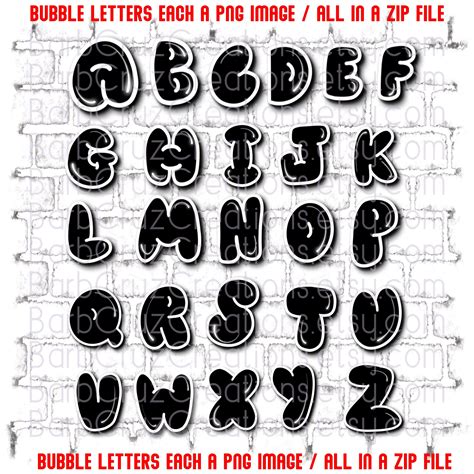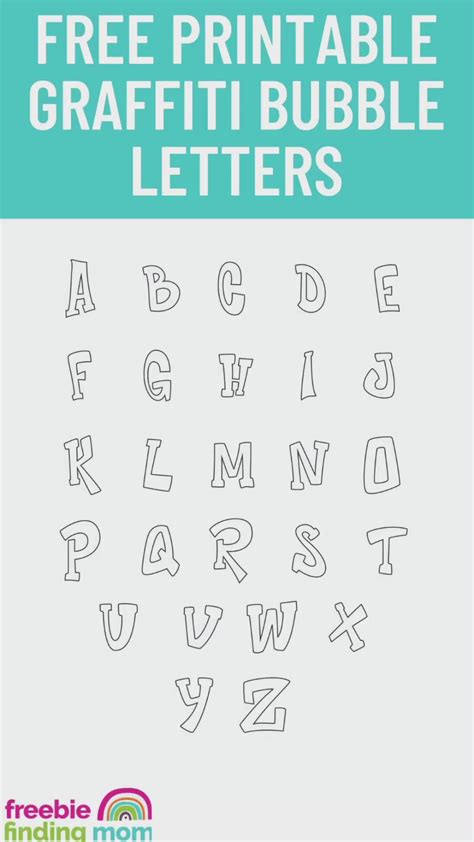
In the world of graphic design and typography, the Bubble Letters Alphabet Font stands out as a playful and expressive choice. This font style, characterized by its rounded, inflated letters, has a unique charm that makes it perfect for various creative projects. Whether you're designing a poster, creating a logo, or adding a fun touch to digital art, the Bubble Letters Alphabet Font can bring a sense of whimsy and creativity to your work.
Understanding Bubble Letters Alphabet Font
The Bubble Letters Alphabet Font is more than just a font; it’s a design element that can transform ordinary text into something extraordinary. The font’s distinctive style, with its large, rounded letters, evokes a sense of nostalgia and playfulness. It’s often associated with graffiti art, comic books, and children’s illustrations, making it a versatile choice for a wide range of applications.
History and Evolution
The origins of the Bubble Letters Alphabet Font can be traced back to the 1970s and 1980s, when graffiti artists began using this style to create eye-catching murals and tags. The font’s popularity grew as it became a staple in comic books and animated series, where it was used to convey a sense of fun and excitement. Over the years, the Bubble Letters Alphabet Font has evolved, with designers creating digital versions that can be easily integrated into modern graphic design software.
Characteristics of Bubble Letters Alphabet Font
The Bubble Letters Alphabet Font is known for its unique characteristics, which set it apart from other font styles. Some of the key features include:
- Rounded Letters: The letters in this font are rounded and inflated, giving them a soft, bubbly appearance.
- Bold and Thick Strokes: The font often features bold and thick strokes, which make it stand out against various backgrounds.
- Playful and Whimsical: The overall design of the font is playful and whimsical, making it perfect for projects that require a fun and lighthearted touch.
- Versatile: Despite its playful nature, the Bubble Letters Alphabet Font is versatile and can be used in a variety of contexts, from children’s books to modern graphic design.
Applications of Bubble Letters Alphabet Font
The Bubble Letters Alphabet Font is incredibly versatile and can be used in a wide range of applications. Here are some of the most common uses:
- Posters and Flyers: The font’s bold and eye-catching design makes it perfect for posters and flyers, where it can grab attention and convey a sense of excitement.
- Logos and Branding: For brands that want to convey a playful and approachable image, the Bubble Letters Alphabet Font can be an excellent choice for logos and branding materials.
- Children’s Books and Illustrations: The font’s whimsical and playful design makes it ideal for children’s books and illustrations, where it can add a sense of fun and creativity.
- Digital Art and Graphics: In the world of digital art and graphics, the Bubble Letters Alphabet Font can be used to create unique and eye-catching designs that stand out from the crowd.
- Greeting Cards and Invitations: For greeting cards and invitations, the font can add a personal and playful touch, making them more memorable and enjoyable.
Creating Bubble Letters Alphabet Font Designs
Creating designs with the Bubble Letters Alphabet Font can be a fun and rewarding experience. Here are some steps to help you get started:
- Select the Font: Choose the Bubble Letters Alphabet Font from your software’s font library or import it if you have a custom version.
- Design Your Layout: Plan your design layout, considering the placement of text, images, and other elements.
- Add Text: Use the Bubble Letters Alphabet Font to add text to your design. Experiment with different sizes and styles to achieve the desired effect.
- Customize and Enhance: Customize your design by adding colors, gradients, and other effects to enhance the overall look and feel.
- Review and Finalize: Review your design for any errors or areas that need improvement. Make necessary adjustments and finalize your design.
💡 Note: When using the Bubble Letters Alphabet Font, it's important to consider the context and audience of your design. While the font is playful and whimsical, it may not be suitable for all types of projects, especially those that require a more professional or formal tone.
Tips for Effective Use of Bubble Letters Alphabet Font
To make the most of the Bubble Letters Alphabet Font, consider the following tips:
- Keep It Simple: Avoid overcrowding your design with too much text. The font’s bold and eye-catching nature means that less is often more.
- Use Contrasting Colors: Pair the font with contrasting colors to make it stand out against the background.